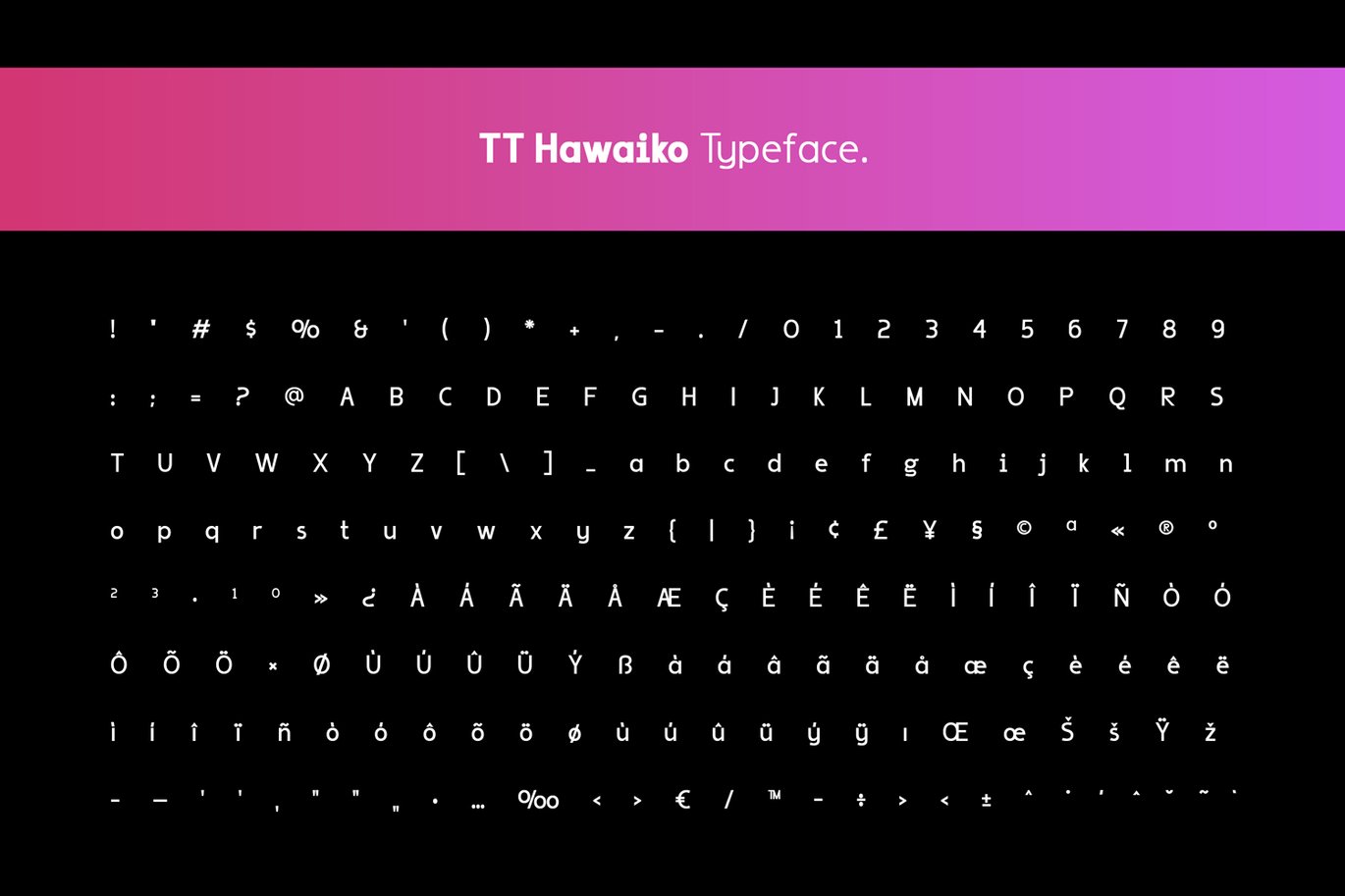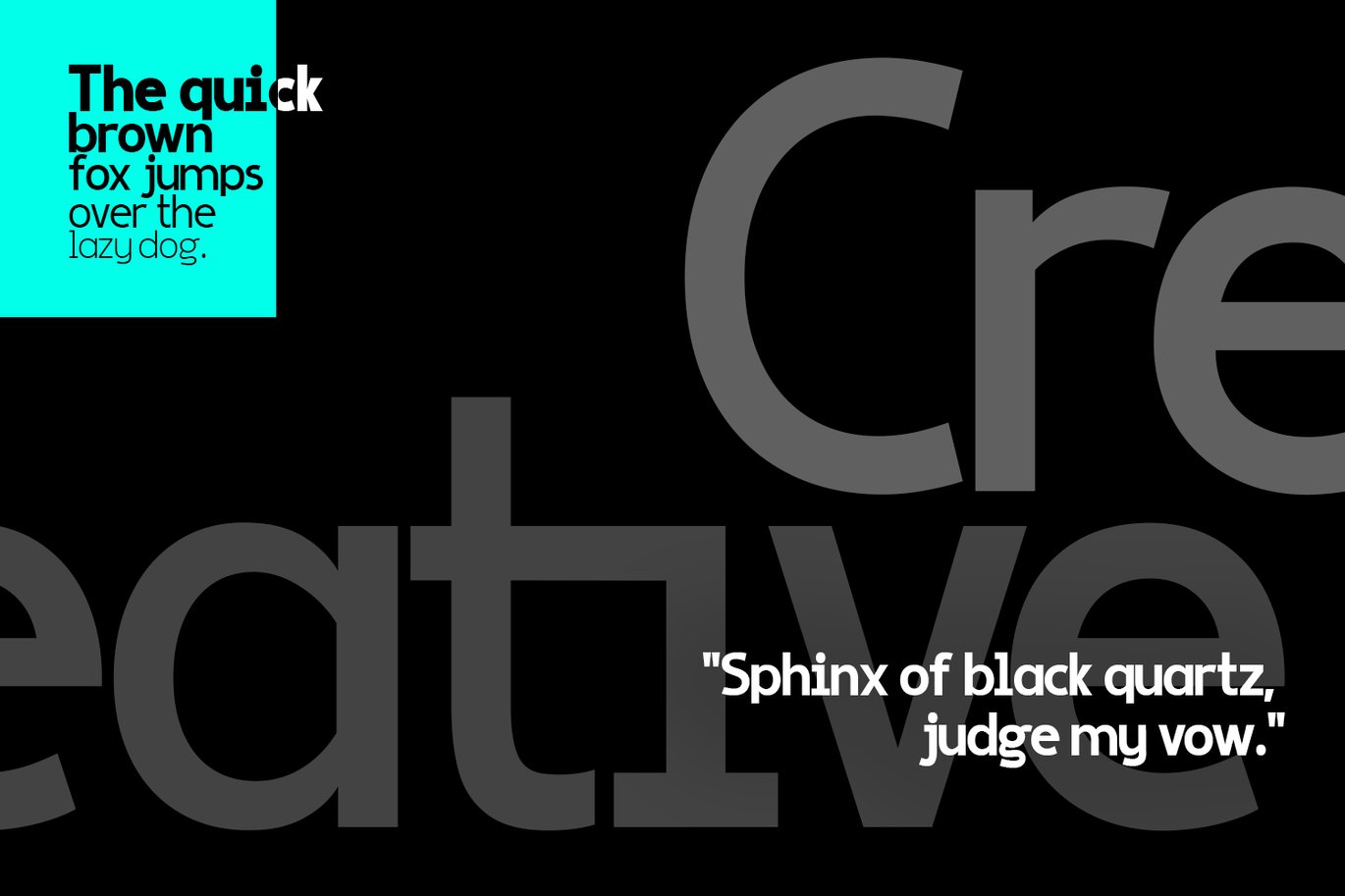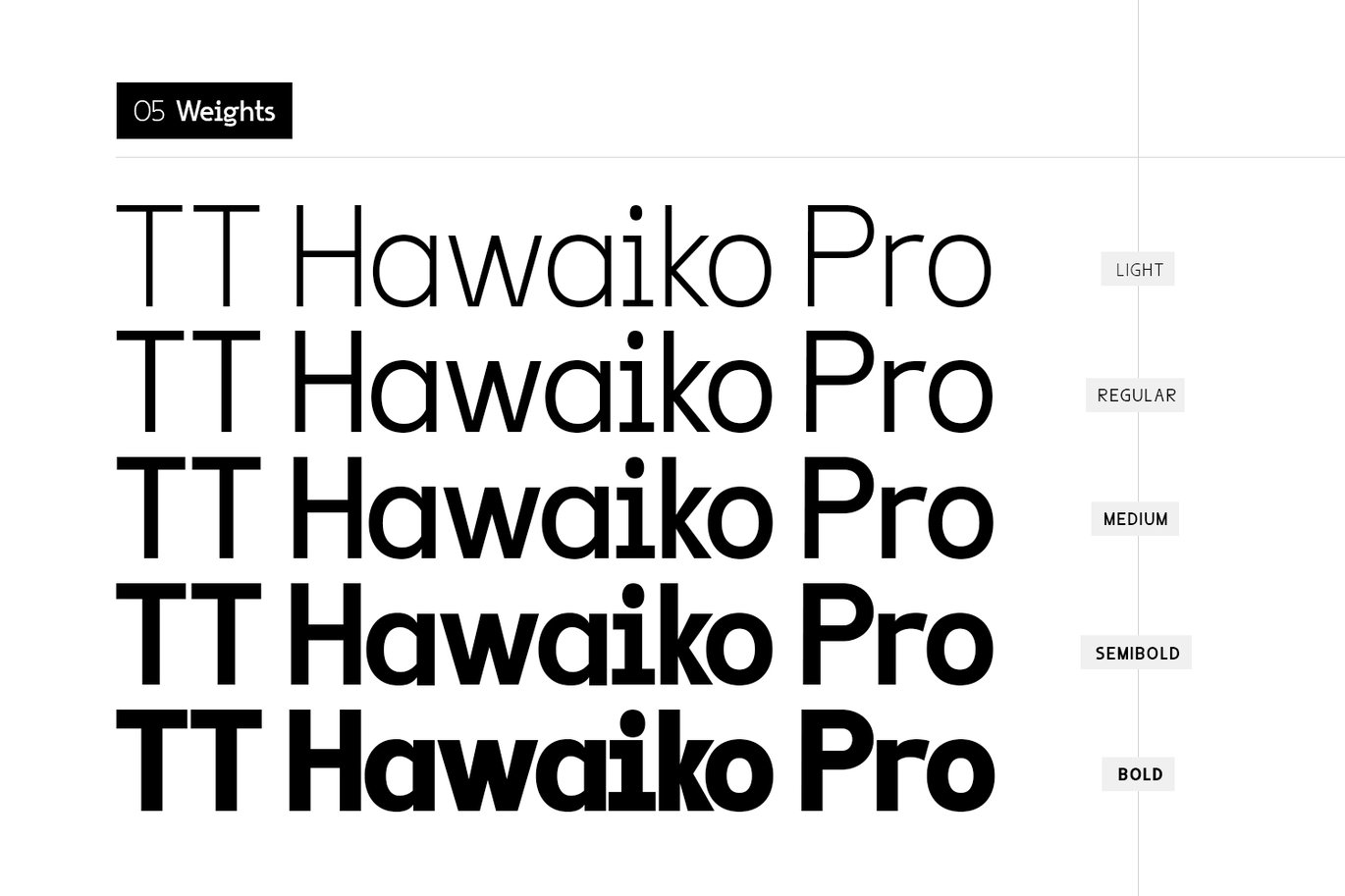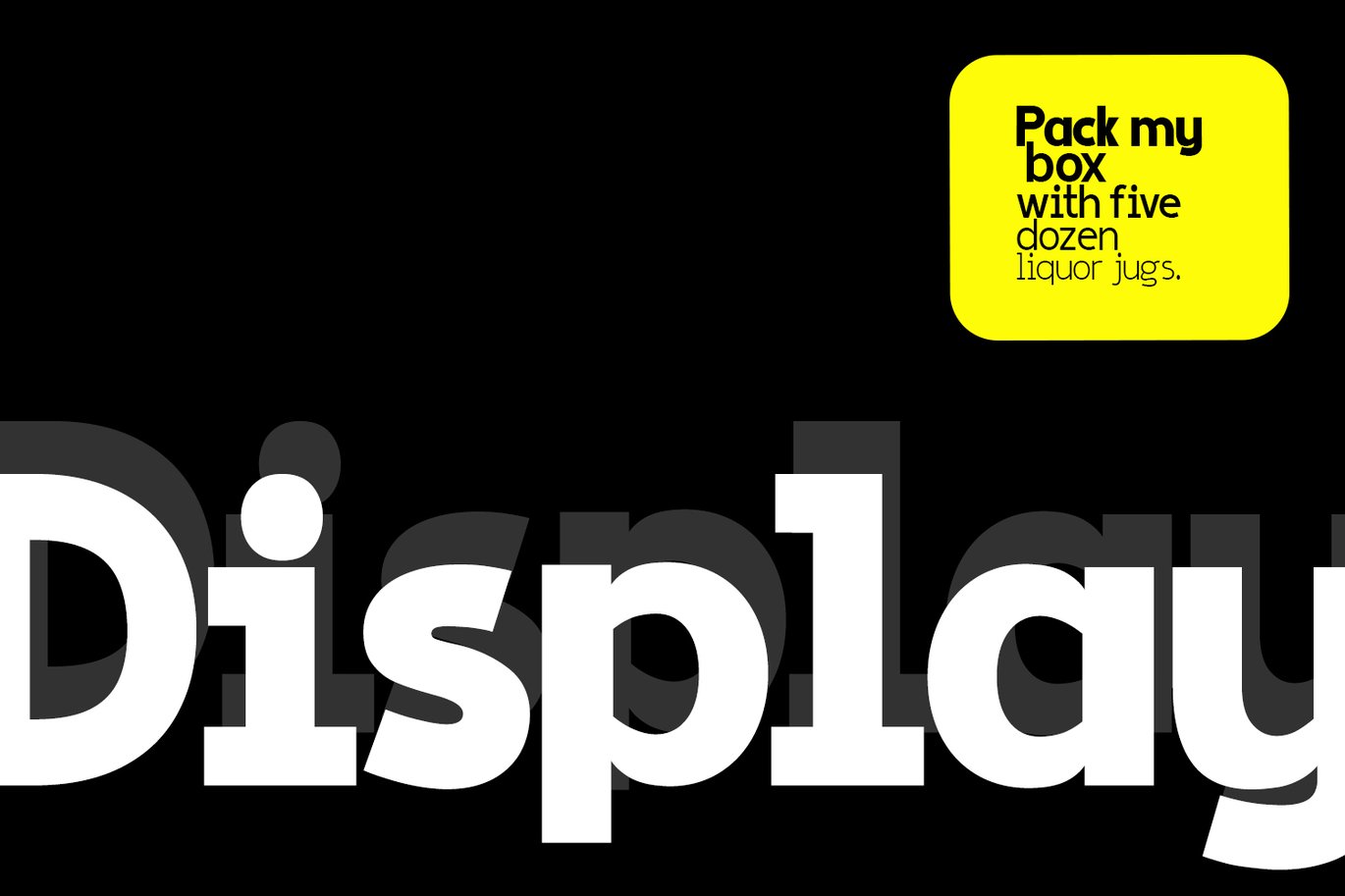
TT Hawaiko Typeface
Introducing TT Hawaiko Display new generation Typeface with 5 Weights. TT Hawaiko created with the vision of to attract the audience to your brand . The finest details of this typeface are methodically and mathematically created. TT Hawaiko is created with all the tasks of a corporate font and also for the usage in a variety of projects, including branding, logos, titles, headlines, servers, posters, screens, display, digital ads, and everything else.
We are putting a lot of effort on this font as a long-term project. The Typeface includes Five Weights. Light, Regular, Medium, SemiBold, and Bold
- Numerals, extended punctuation & Basic Symbols(200+ Glyphs).
- Uppercase Letters & Lowercase Letters